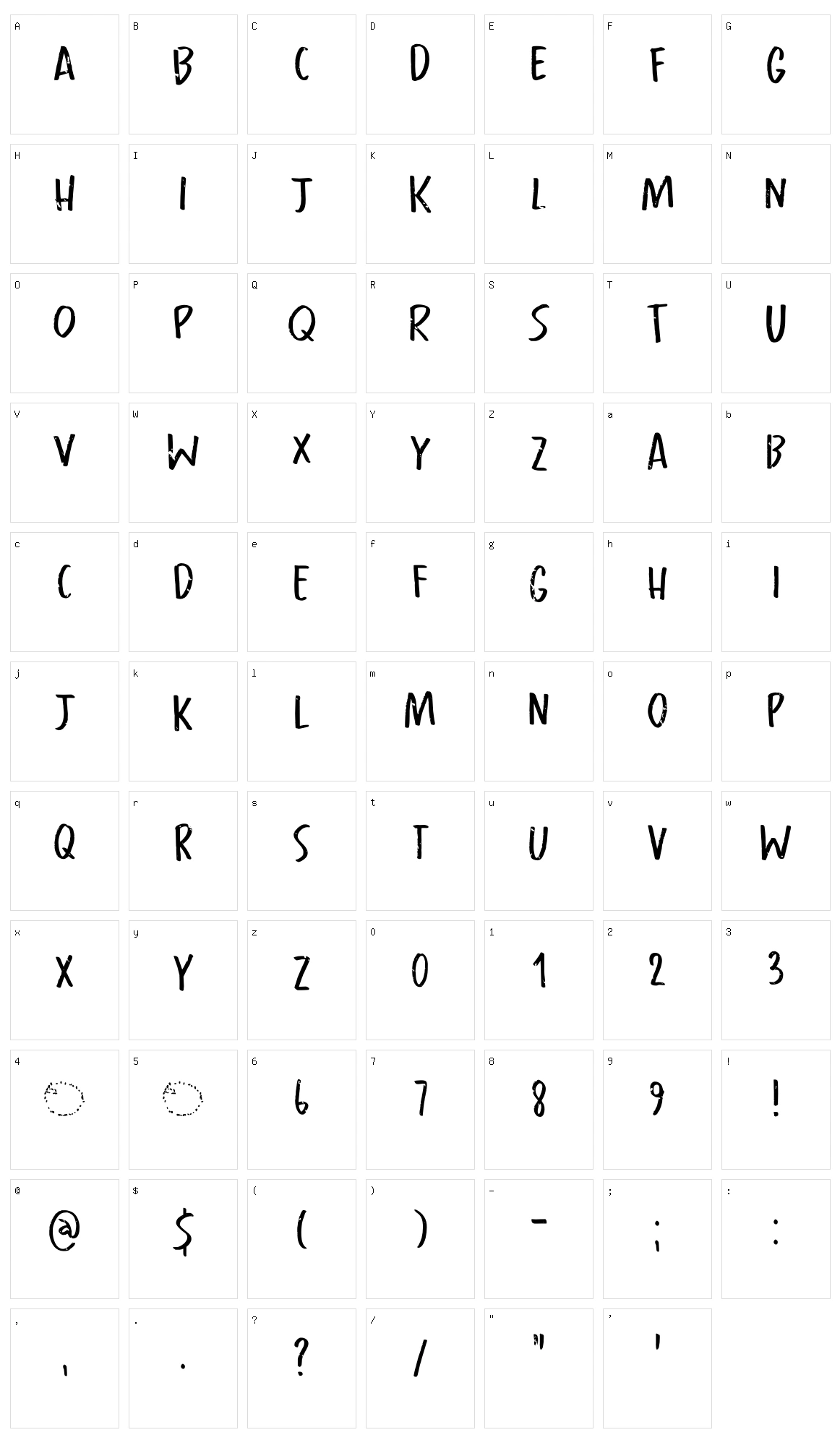
The free font Castlerigg is carefully designed by Hanoded, showcasing a thoughtful balance of creativity and usability and falls under the Script font style. When you download the ZIP file, it contains only 2256.55 KB of font files, making it lightweight and quick to download. Please review the license details below to understand permitted usage and distribution rights. If license information is not available, we recommend using this font for personal projects only or contacting the author directly for commercial usage permissions.